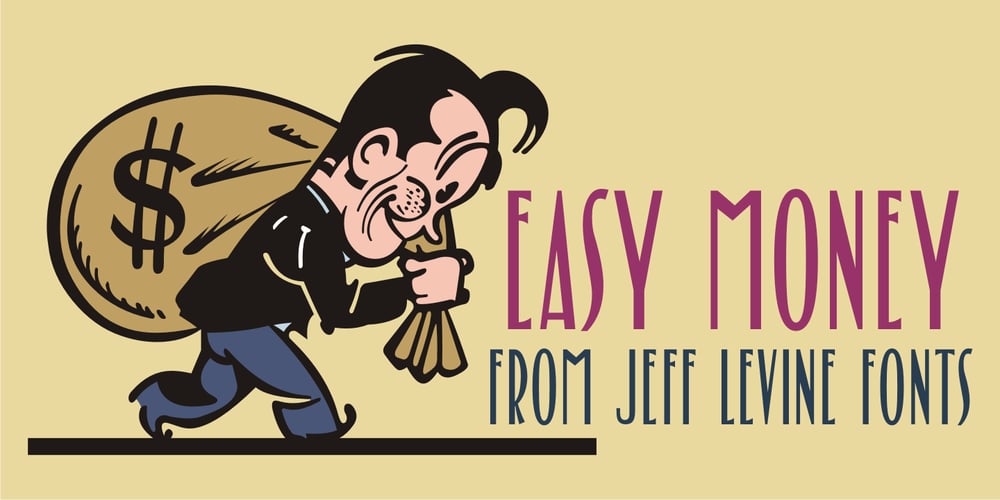
Easy Money JNL Font Family was designed by Jeff Levine and published by Jeff Levine. Easy Money JNL contains 1 styles and family package options. The 1920s Art Nouveau movement spawned a number of beautiful hand lettered pieces of sheet music from that era. Attractive and narrow, the characters found on the title page of one such piece of music was the inspiration for Easy Money JNL.